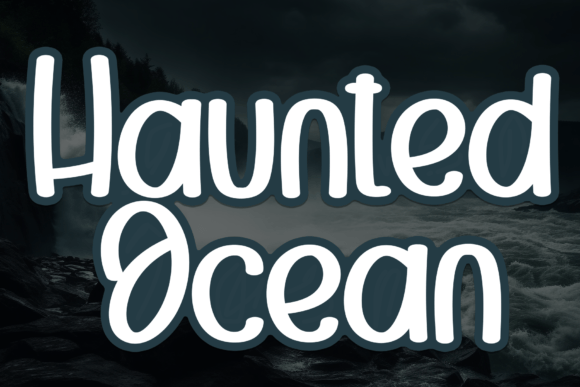
Welcome to the enchanting world of Haunted Ocean Font, a mesmerizing display font handcrafted to spread joy and inspire creativity. Immerse yourself in the depths of this captivating script font, a testament to the beauty found within the ocean's allure.
Haunted Ocean Font is a mesmerizing dance of letters, each character flowing seamlessly into the next, reminiscent of gentle waves caressing the sandy shores. Its playful and charming nature invites you on an adventure, where imagination knows no bounds. Let your words take on a life of their own as they leap off the page, adorned in the elegance and whimsy of Haunted Ocean.
Picture your wedding invitations adorned with the graceful strokes of Haunted Ocean, inviting your guests to an unforgettable celebration. Enchant your greeting cards with heartfelt messages, penned in the enchanting script of Haunted Ocean. Unleash your creativity as you craft posters, flyers, and social media graphics that captivate and inspire. The possibilities are endless, limited only by your imagination.
With Haunted Ocean Font, you'll find yourself immersed in a symphony of visual delight. Its versatility allows it to seamlessly blend with various design styles, enhancing your projects with a touch of timeless charm. From elegant wedding stationery to playful birthday cards, Haunted Ocean gracefully adapts, adding a unique touch to every creation.
Join the growing community of designers and creatives who have already fallen under the spell of Haunted Ocean Font. Let its enchanting allure transport you to a realm of creativity and joy. Embrace the spirit of the ocean, let your words dance across the page, and leave a lasting impression on all who encounter them.
Say goodbye to ordinary fonts and dive into the depths of Haunted Ocean, where every letter holds a story waiting to be told. Discover the endless possibilities that await you, and let your imagination soar.